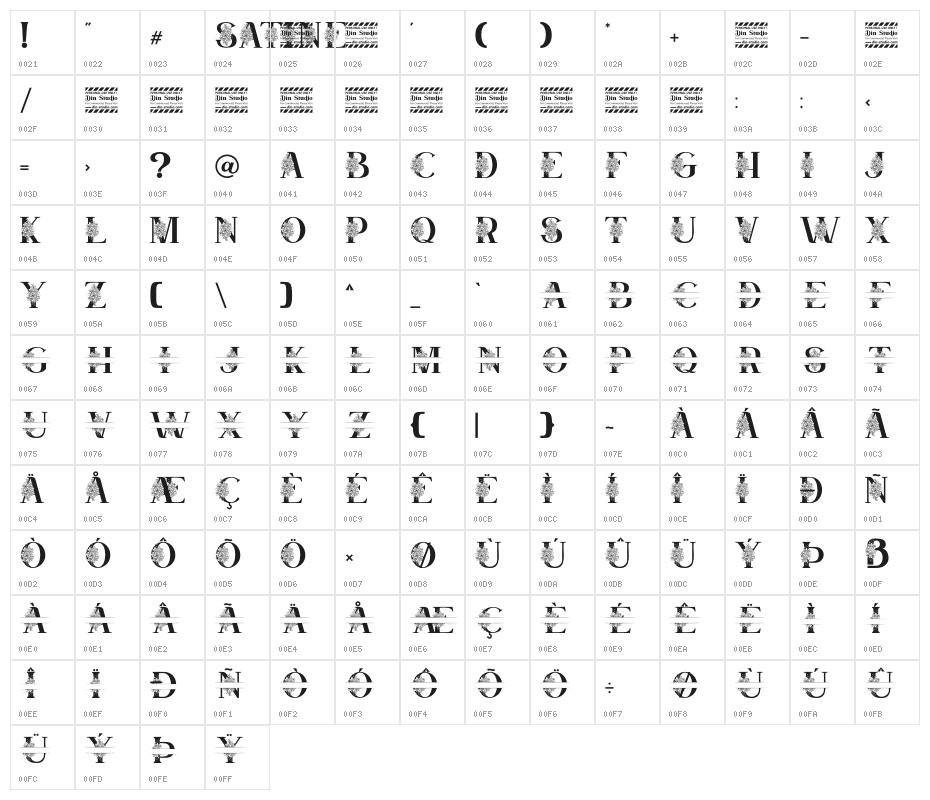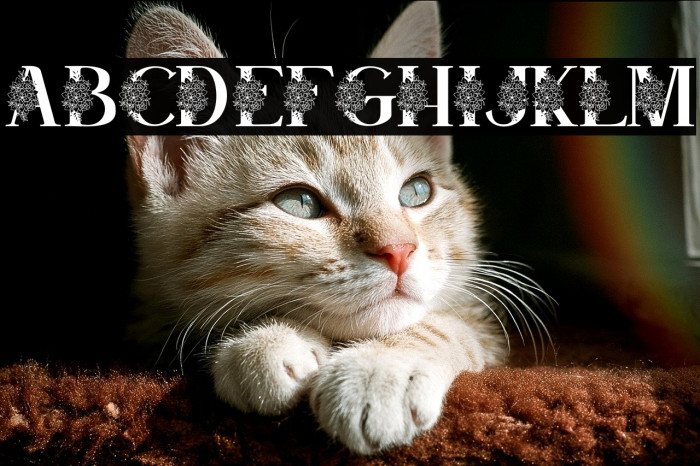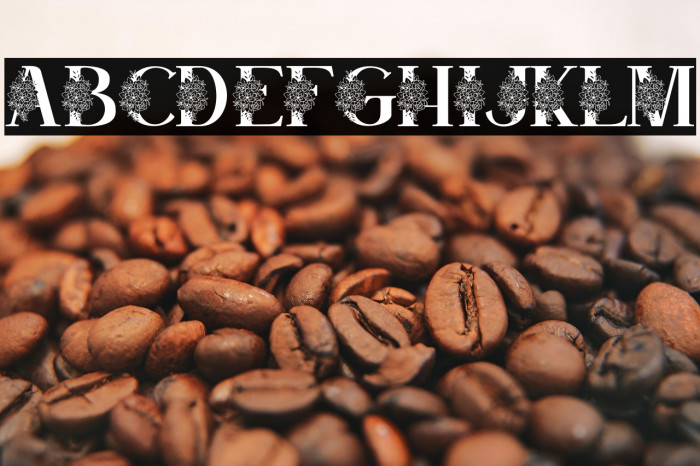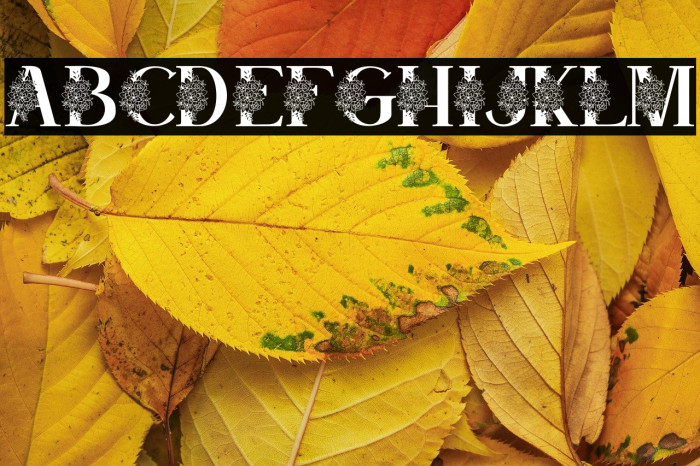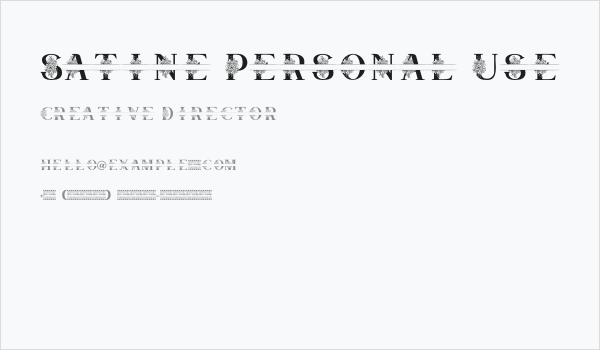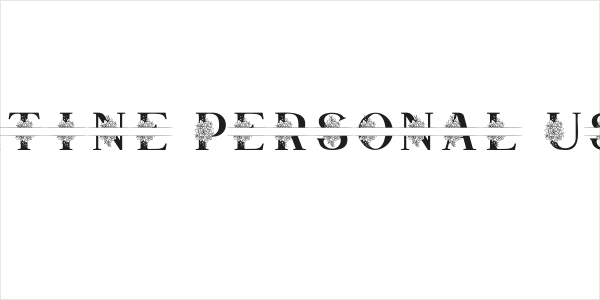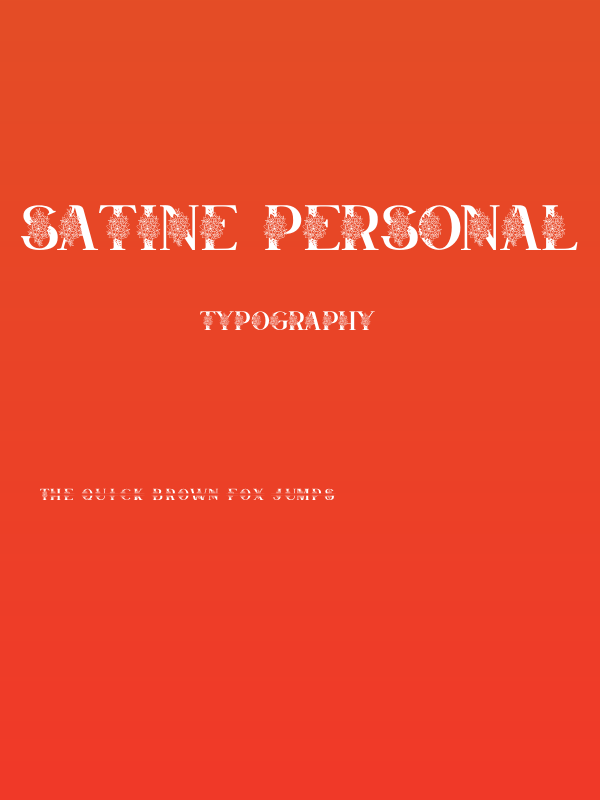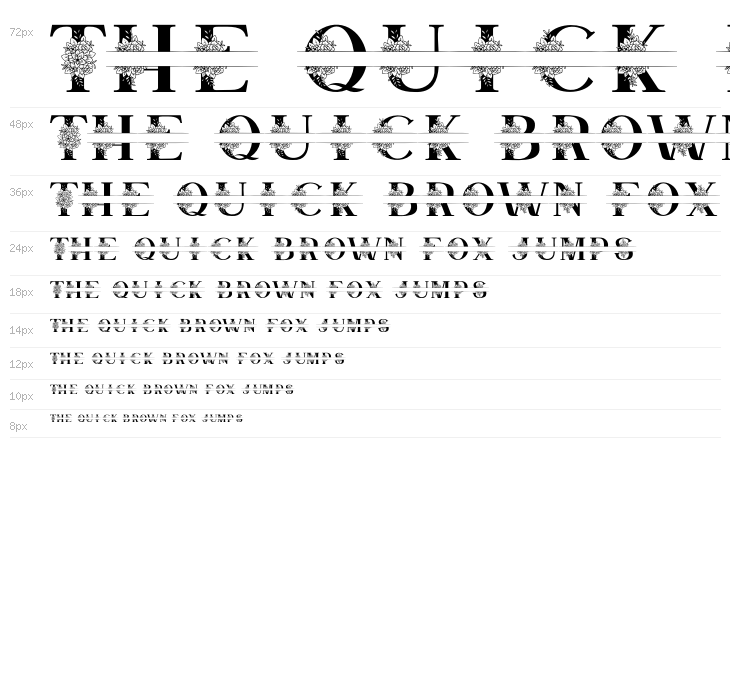
Satine Personal Use Font
Satine Personal Use Description
This font features a decorative and intricate design with floral patterns integrated into each letter. The uppercase letters are bold and embellished with detailed floral motifs, creating a striking visual impact. The style is reminiscent of vintage or classical design, with a modern twist due to its unique decorative elements. The characters are well-defined, with a balance between the floral embellishments and the letterforms, ensuring readability while maintaining an artistic flair. This font is ideal for projects that require a touch of elegance and sophistication.
| Overall Style | Vintage, Decorative |
| Use Case | Headlines, Logos, Decorative text |
| Proposed Projects | Ideal for wedding invitations, luxury branding, decorative posters, and artistic projects. |